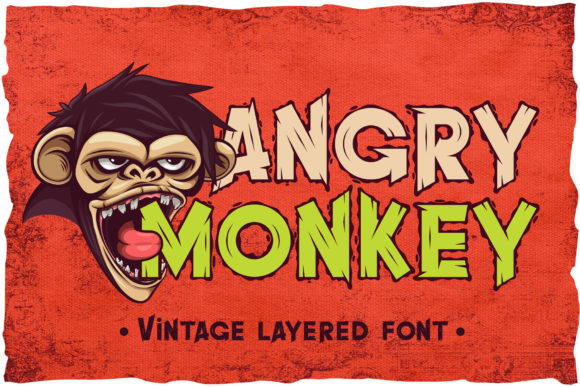
The Angry Monkey Font: A Vintage Gem for Creative Projects
I’ll never forget the time I was working on a retro-themed poster design for a client’s vintage-inspired cafe. I had all the graphics and colors sorted, but I was stuck on finding the perfect font to give it that authentic feel. That’s when I stumbled upon the Angry Monkey font, and it instantly elevated my design to a whole new level. If you’re a designer, crafter, or creative hobbyist looking for a cool, vintage-styled display font, you’re in luck because today we’re diving into the wonderful world of Angry Monkey.
- Unique vintage vibe that’s perfect for retro-themed projects ✅
- Highly legible, even at larger font sizes 📚
- Great for headlines, titles, and short paragraphs due to its bold and eye-catching style 📝
- Works well with a variety of design elements, from illustrations to photographs 📸
- May not be the best choice for body text due to its bold nature ⚠️
- Limited use of OpenType features, but still offers some nice stylistic alternates 🎨
- Some users might find the font a bit too distressed or rough around the edges 😬
The Angry Monkey font was inspired by the classic typography of the 1960s and 1970s. The designer, who wishes to remain anonymous, was inspired by the bold, playful fonts of the era and sought to create a font that would evoke a similar feel. With its distressed texture and bold lines, Angry Monkey is the perfect font for designers looking to add a touch of retro flair to their projects.
| What type of projects is Angry Monkey best suited for? | Angry Monkey is best suited for projects that require a bold, vintage feel, such as retro-themed posters, logos, and headlines. |
| Is Angry Monkey a difficult font to use? | No, Angry Monkey is a relatively easy font to use, especially for designers familiar with vintage typography. It’s also a great font for beginners, as it’s highly legible and versatile. |
| Can I use Angry Monkey with other fonts? | Yes, Angry Monkey can be paired with a variety of fonts to create a unique look. Experiment with different font combinations to find the perfect pairing for your project. |